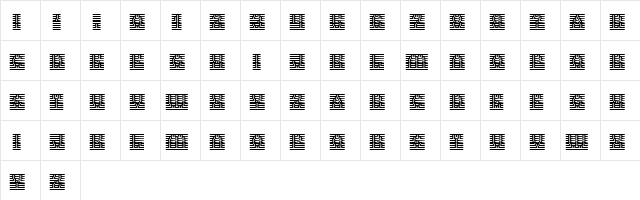
Pinpression Regular
Design Context for Pinpression Typeface
Pinpression is a composed and adaptable typeface that performs quietly and consistently across a wide range of design contexts.
Pro Tip: Use Pinpression in both headline and body roles to test its range before committing to a single application.